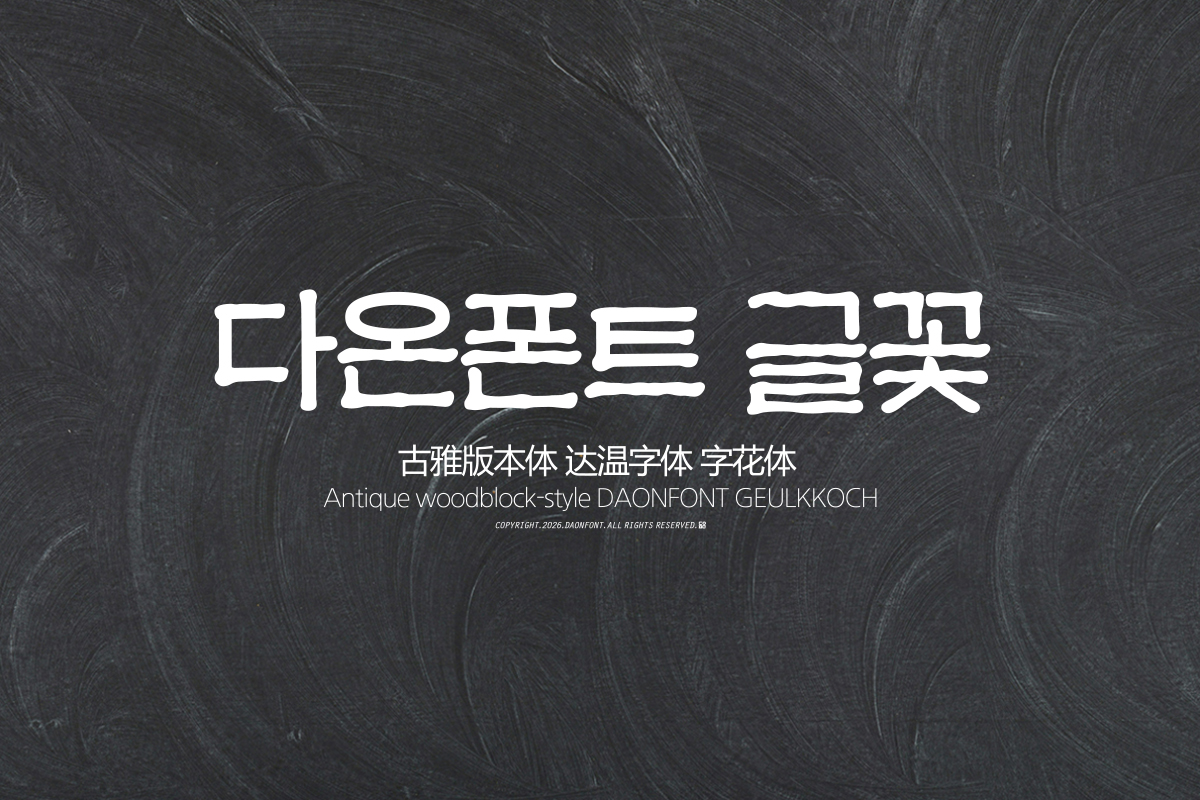
DAON GEULKKOCH(M)
'GEULKKOCH' is a Hangul typeface that interprets the atmosphere of traditional Panbonche into modern typography. Based on a neat structure and calm impression, it imbues each character with a dignified atmosphere, creating a classy visual image for titles.